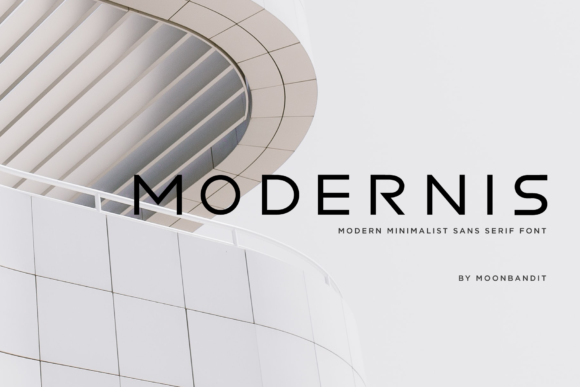
About Modernis Font
Modernis delivers a clean, modern and minimalist sans serif, perfect for logos, headlines, display texts, and much more! It comes in bold and regular.